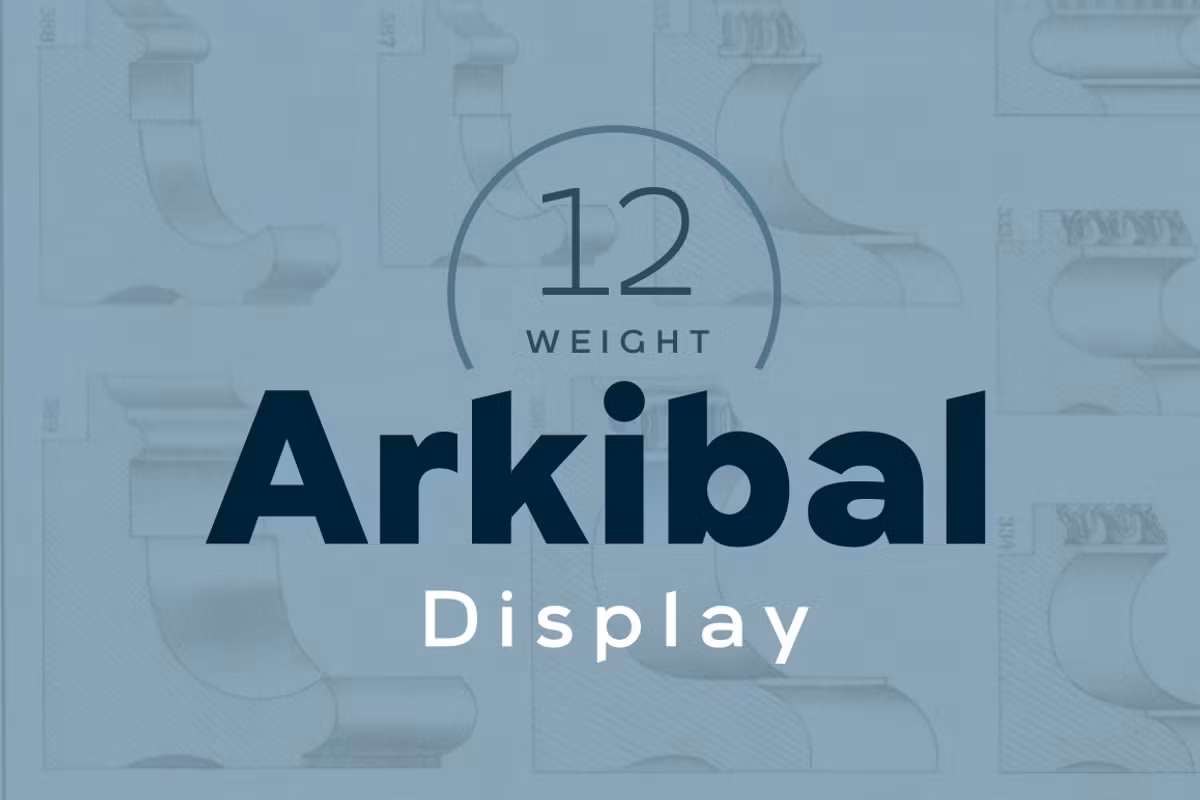
Make a bold and stylish statement with Arkibal Font Display Free Download. This unique display font features strong, geometric shapes and an artistic flair, making it perfect for branding, posters, logos, headlines, and any design that needs to stand out with a modern and creative touch.
Arkibal combines clean lines with sharp, distinctive angles, giving your typography an eye-catching, contemporary look. It includes uppercase and lowercase letters, numerals, punctuation, and multilingual support, offering flexibility for experimenting with various design layouts and styles.